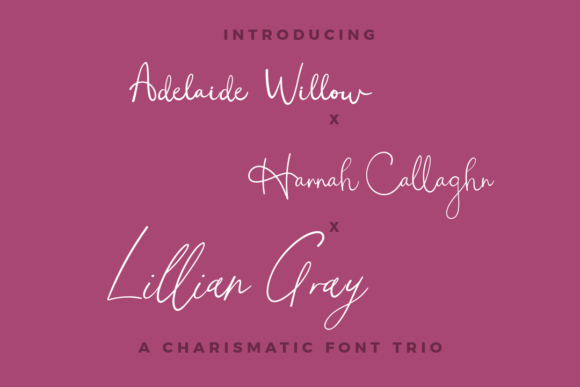
The Perfect Combination of Elegance and Personality
As designers, we’ve all been there – staring at a blank page, trying to come up with the perfect font combination to bring our vision to life. And then, it hits us – the perfect trio that makes our designs stand out from the crowd. For me, it was the moment I discovered the Adelaide Hannah Lillian Trio Font, a stunning collection of cursive handwritten fonts that add an instant touch of sophistication to any design.
Comprising of Adelaide, Hannah, and Lillian, this trio is a game-changer for designers. Each font brings its unique charm and character, but together, they create a visual harmony that’s simply irresistible. Whether you’re working on a wedding invitation, a branding project, or a personal blog, the Adelaide Hannah Lillian Trio Font is sure to elevate your designs and leave a lasting impression.
Adelaide Hannah Lillian Trio Font Key Features
- Font Family: Adelaide Hannah Lillian Trio, a beautiful and elegant script font
- Unique Characteristics: Hand-drawn, elegant script font with a vintage feel, perfect for wedding invitations, greeting cards, and other creative projects
- Font Style: Script, with a variety of font weights and styles, including regular, bold, italic, and bold italic, for added flexibility and customization
Adelaide Hannah Lillian Trio Font Review
As a designer, I was excited to dive into the Adelaide Hannah Lillian Trio Font. ✨ I was immediately struck by its elegant, vintage aesthetic, which would be perfect for high-end branding or luxury packaging. The font’s cursive script is both refined and ornate, making it a great choice for formal invitations or special occasion stationery.
- ✨ Elegant and refined aesthetic, perfect for luxury branding
- ✨ Beautiful cursive script that’s both ornate and refined
- ✨ Highly versatile and suitable for a range of applications
- ⚠️ Limited character set, which may make it difficult to use for longer blocks of text
- ⚠️ May not be suitable for digital displays, as it can appear fuzzy or pixelated
Overall, I think the Adelaide Hannah Lillian Trio Font is a beautiful and elegant choice for designers looking to add a touch of luxury to their projects. While it may have some limitations, its unique aesthetic and high-end feel make it a great option for special occasions or high-end branding.
For optimal results, use the Adelaide Hannah Lillian Trio Font in conjunction with a high-quality image or background.
Experiment with different font sizes and colors to achieve the desired visual effect.
The Adelaide Hannah Lillian Trio Font is ideal for:
Food and beverage branding
Home decor and furniture design
Any project that requires a vintage, elegant, and feminine touch
Carolyna Pro is a elegant script font with a touch of sophistication. It is ideal for creating invitations, wedding stationery, and other high-end designs. When to use: luxury branding, high-end fashion, and upscale events. It compares to Adelaide Hannah Lillian Trio Font in its flowing and feminine style, but Carolyna Pro is more refined and polished.
Alex Brush is a beautiful script font with a handwritten feel. It is perfect for creating a personal and intimate tone in designs. When to use: weddings, birthdays, and other personal celebrations. It compares to Adelaide Hannah Lillian Trio Font in its elegant and flowing style, but Alex Brush is more casual and relaxed.
Great Vibes is a modern script font with a fun and energetic feel. It is ideal for creating designs that require a sense of movement and playfulness. When to use: music festivals, sports events, and other lively occasions. It compares to Adelaide Hannah Lillian Trio Font in its flowing and dynamic style, but Great Vibes is more vibrant and energetic.
What is the character set and language support for the Adelaide Hannah Lillian Trio Font?
The Adelaide Hannah Lillian Trio Font includes a comprehensive character set that supports over 100 languages, including Latin, Cyrillic, and Greek scripts. This makes it an ideal choice for designers working on international projects or creating multilingual content.